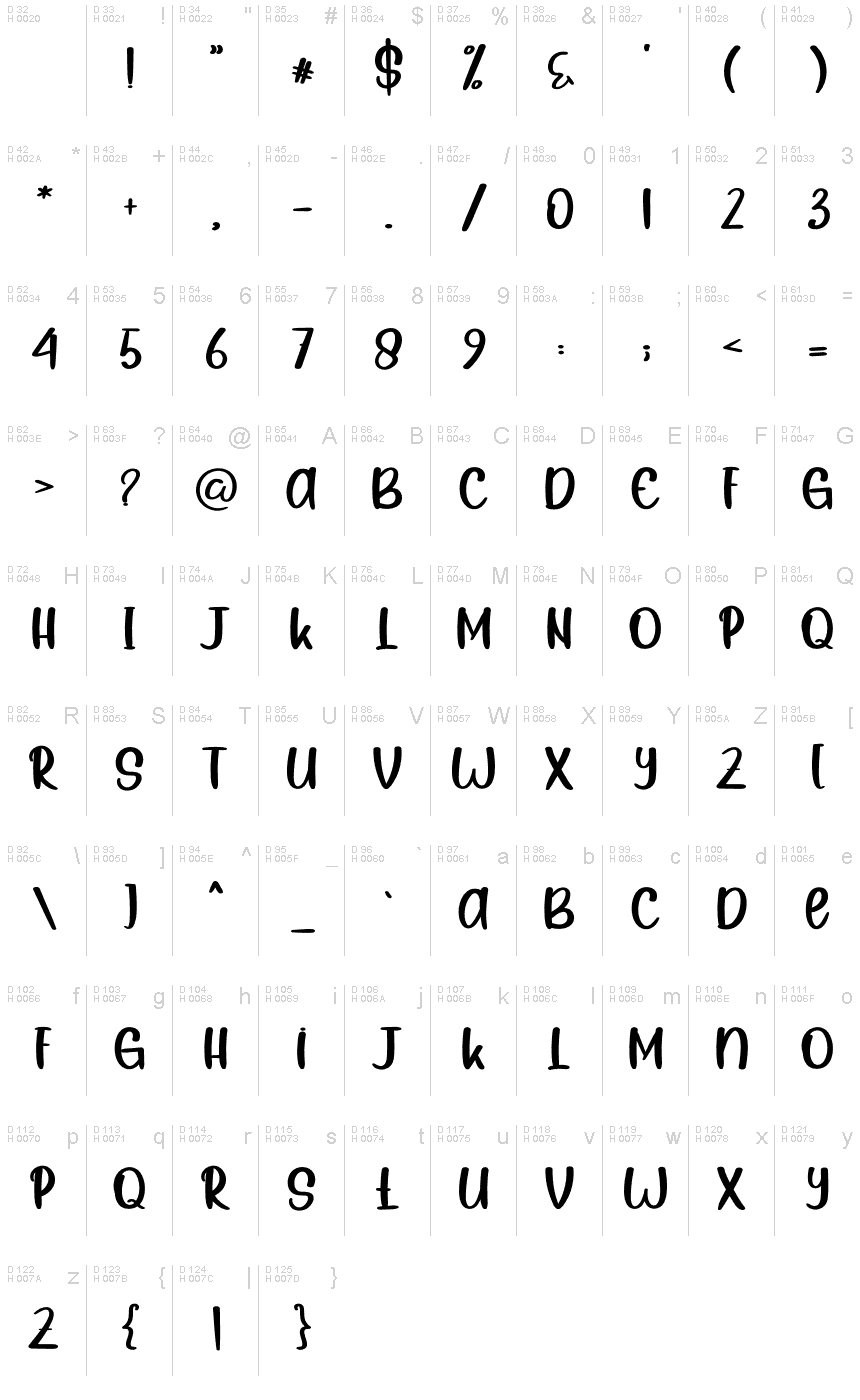
Mouse
With its charming curves and playful presence, Mouse by Etik Fatimah brings the warmth of handmade artistry to your digital canvas. This semi-bold, handwritten display font exudes a sweet and friendly vibe that instantly infuses your projects with a personal touch. Perfect for wedding invitations or greeting cards that call for an intimate feel, Mouse also shines in creative designs seeking a dash of whimsy and fun.
Embrace the delightful character of Mouse to elevate your design work with its distinctive style and engaging appeal.